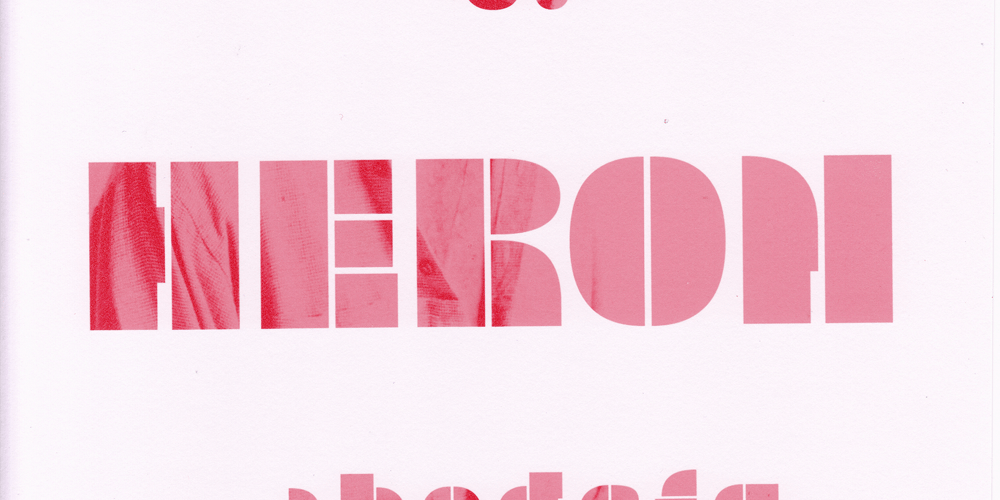
INDG Heron
INDG Heron font
INDG Heron Font Family was designed by Iñigo Uriarte and published by Iñigo Uriarte. INDG Heron contains 1 styles and family package options. Jazzy stencil font inspired in the music of Gil Scott Heron, ideal for music event posters and revolutionary ideas.